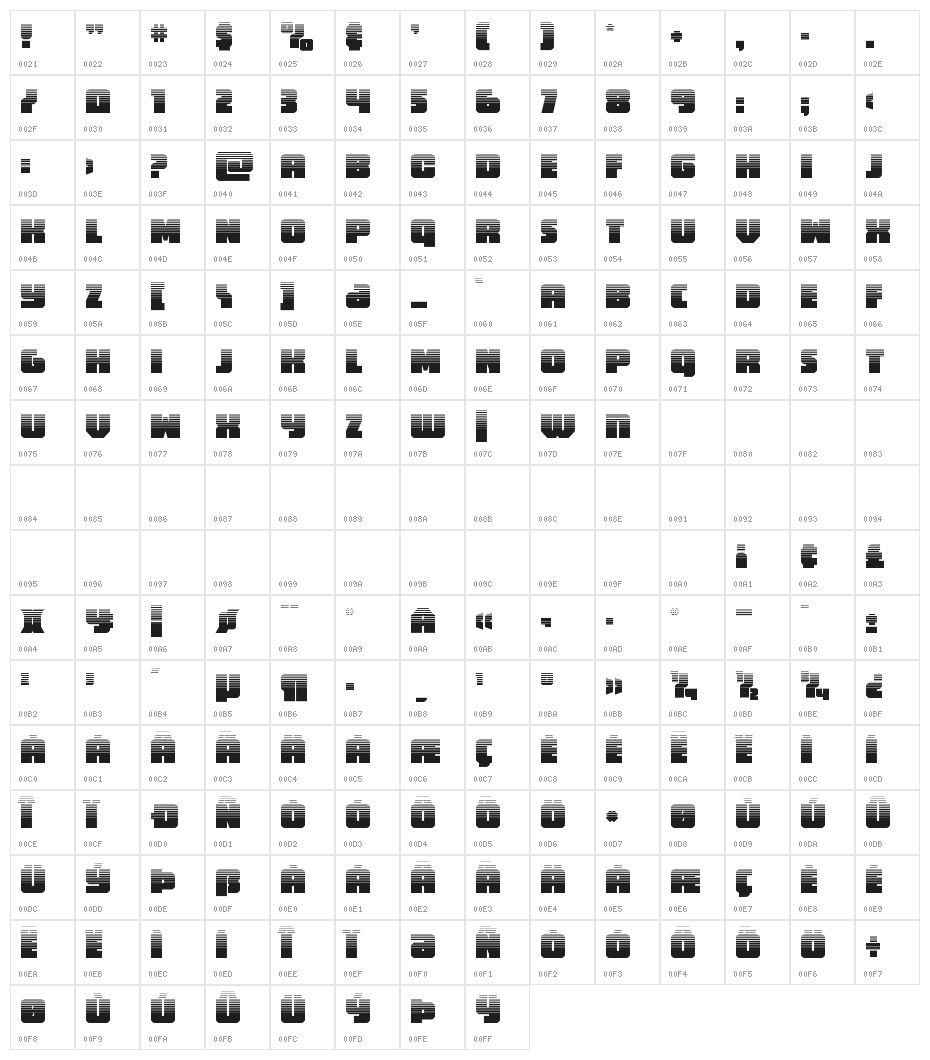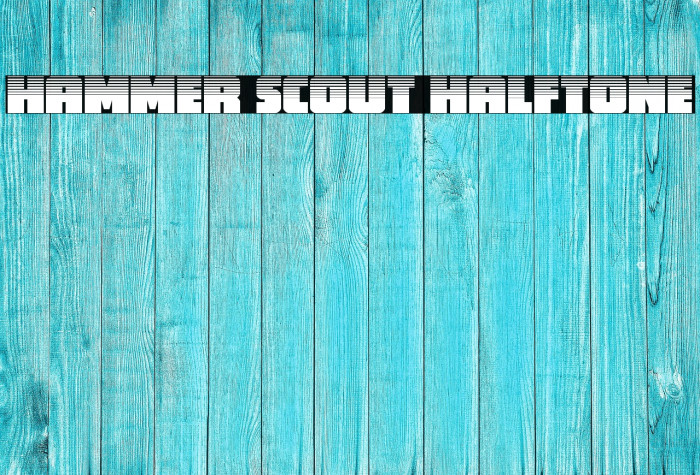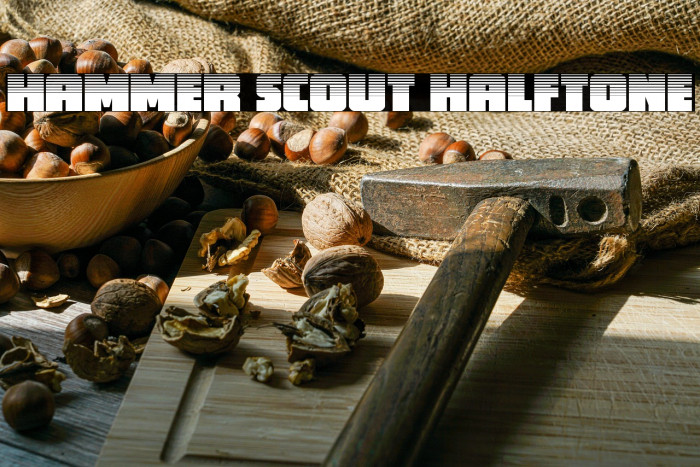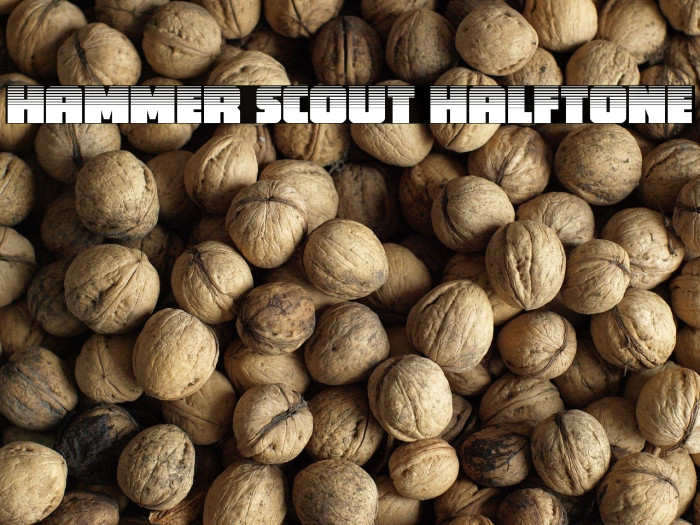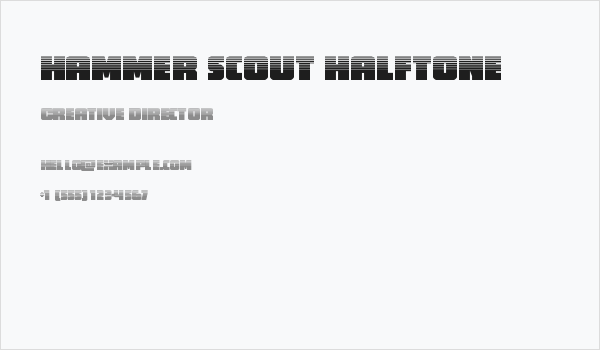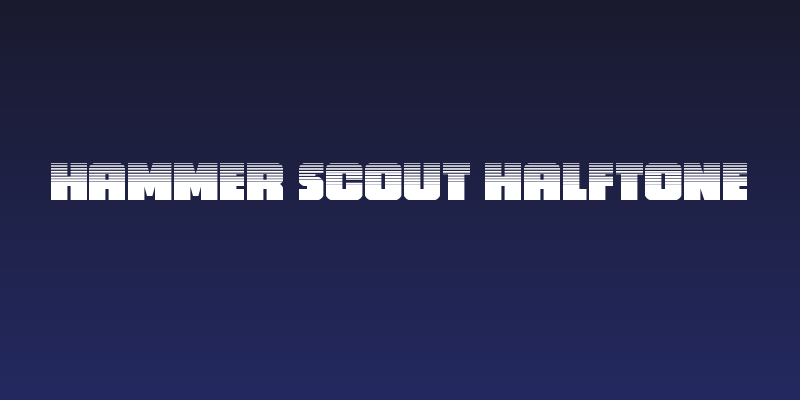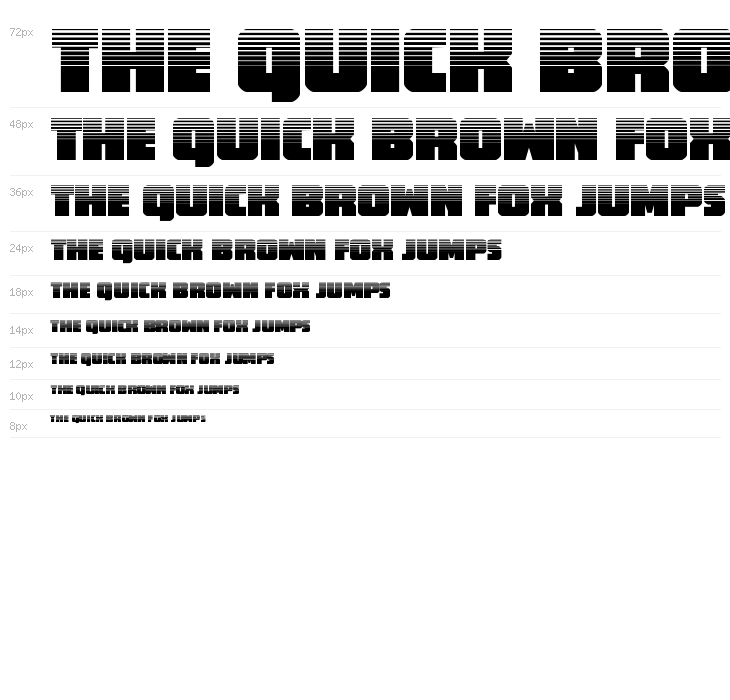
Hammer Scout Halftone Font
Hammer Scout Halftone Description
This font features a bold, geometric design with a distinct halftone effect, giving it a modern and dynamic appearance. The characters are constructed with horizontal lines that create a sense of movement and depth. The uppercase and lowercase letters maintain a consistent style, with sharp angles and a strong presence. The numbers and special characters are equally bold, ensuring uniformity across all glyphs. This font is ideal for projects that require a striking and contemporary look, such as posters, headlines, and branding materials.